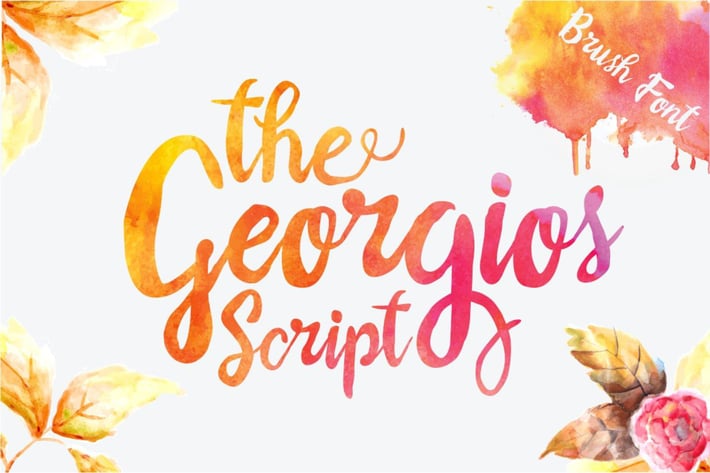
The Georgios Font
The Georgios font is a handwritten based on typeface typographer using brush pen.
Georgios glyph consists of 276 glyphs, including many alternate choices of characters, including the stylistic alternates and sylistic set.